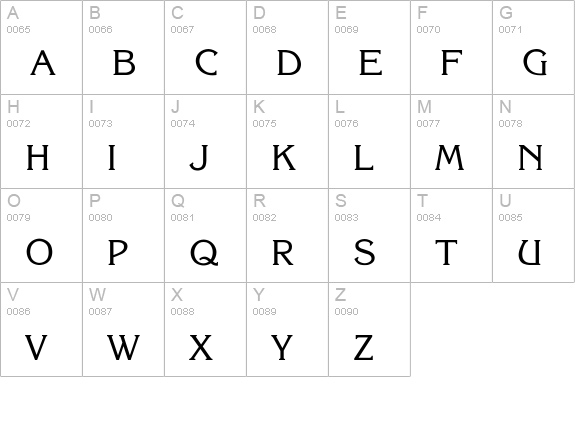
Korina-Light is a refined, elegant variant in the Korina typeface family \xE2\x80\x94 well suited to elegant body text, refined sub-headings, and luxury branding.
Korina-Light is a sleek and elegant font that exudes modern sophistication. With its clean lines and minimalist design, this font is perfect for adding a touch of class to your projects. Whether you're working on branding, editorial design, or web content, Korina-Light will elevate your work to the next level. The best part? Korina-Light is completely free to download at FontsMarket.com. So you can enhance your designs without breaking the bank. Don't miss out on this stylish and versatile font - download Korina-Light today and take your projects to new heights.